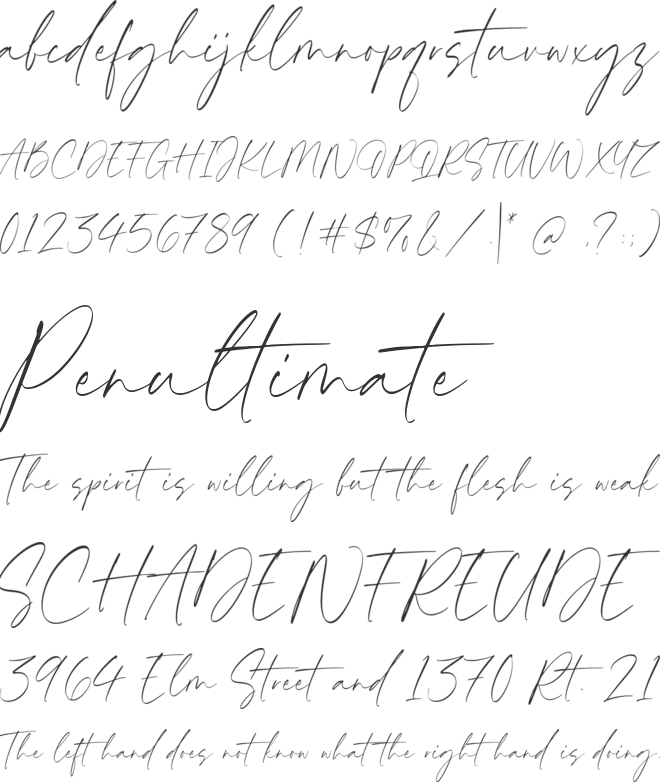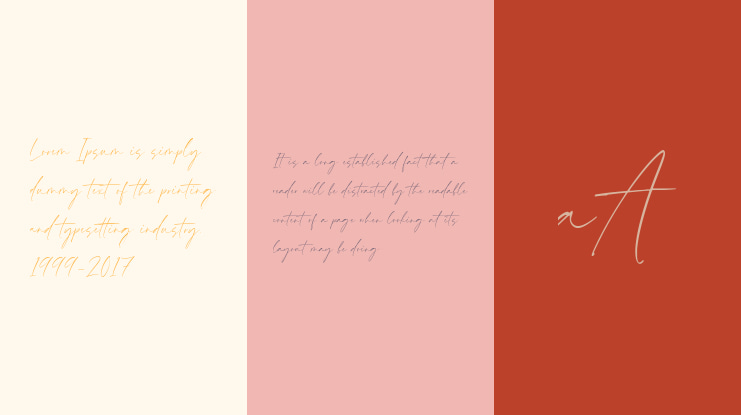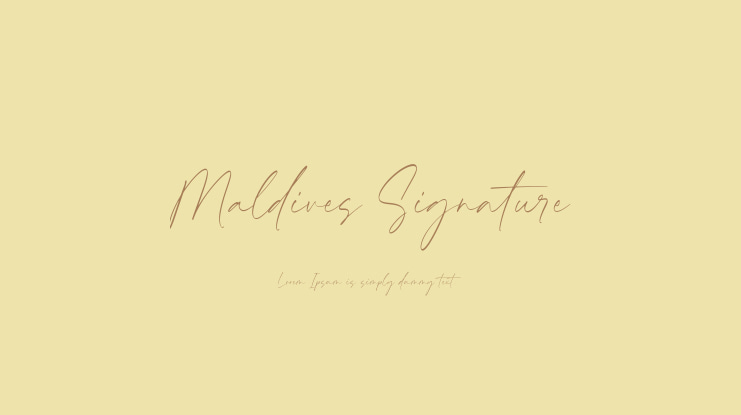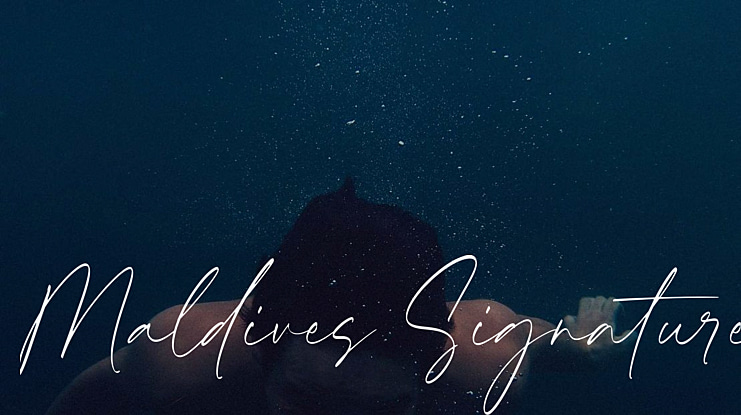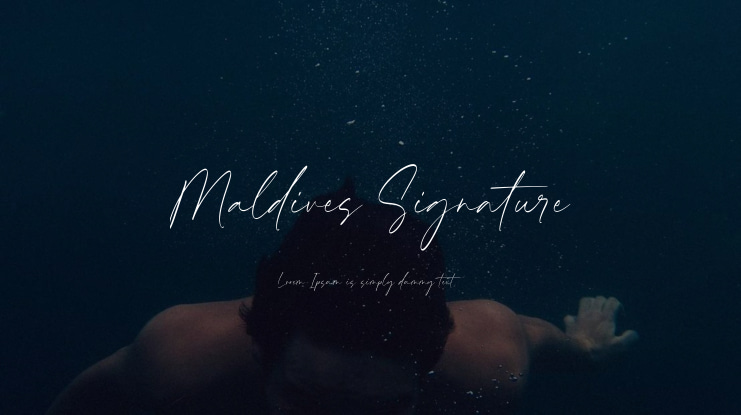
Maldives Signature Font
The Maldives Signature Font is a contemporary and stylish handwritten script font that will add a warm and inviting touch to your business. Embrace the beauty of this font and witness its incredible magic for yourself.
Maldives Signature is the perfect choice for various applications such as product packaging, branding projects, magazines, social media, weddings, or simply to make a statement over any background.
• A complete set of standard alphabet and punctuation characters